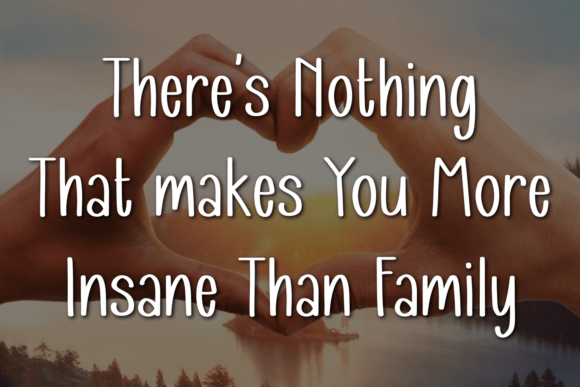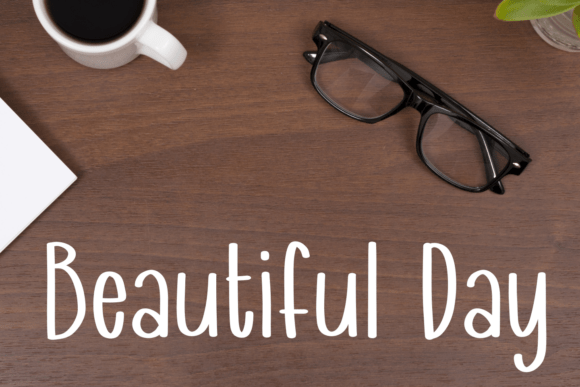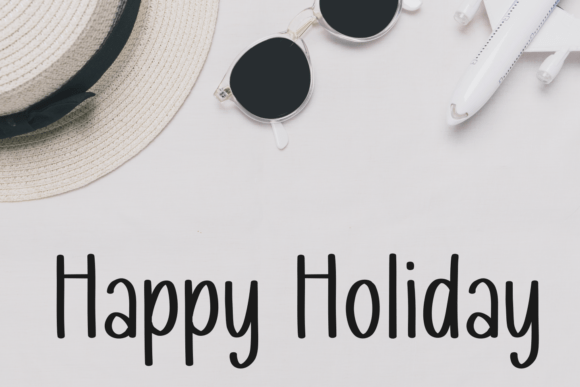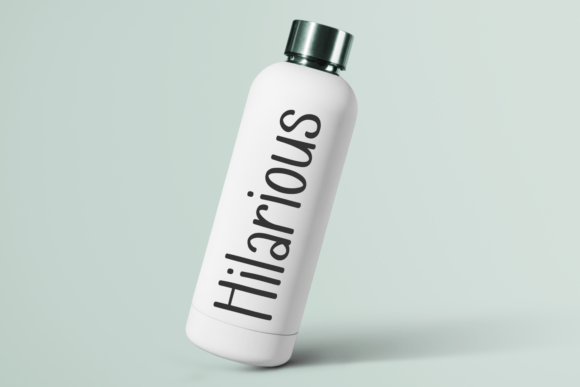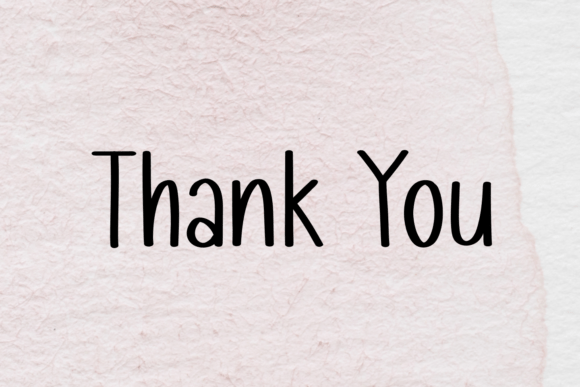
Introduction to Creatives Font
Creatives is a playful handwritten font designed to bring warmth, personality, and effortless charm into every project.
With its tall letterforms, smooth curves, and relaxed rhythm, this typeface feels natural and approachable while still keeping a clean and modern appearance Perfect for branding, quote designs, social media graphics, childrenโs products, packaging, posters, greeting cards, and DIY crafts, Creatives adds a lighthearted touch without losing readability.
Key Features of Creatives Font